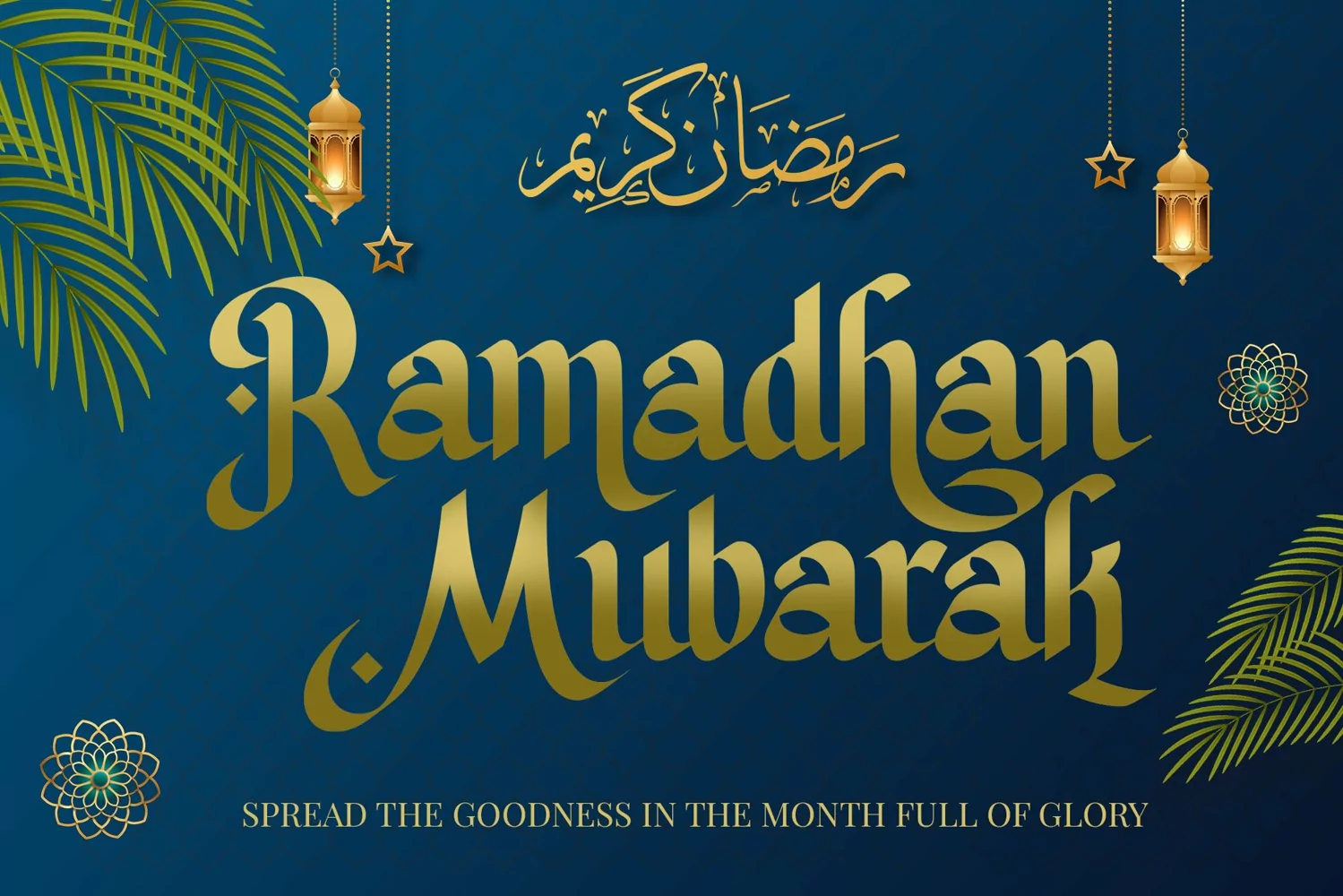
Uwaisyahm
**Uwaisyahm Font**
This pair was inspired by moslem movie poster design that i saw on some coffee shop, It was crafted by hand specially to add natural handmade feeling in its brand identity than i make it clean with pentool.
Schoutler Font is very good looking in logo, labels, t-shirt prints, product packaging, invitations, advertising and others.